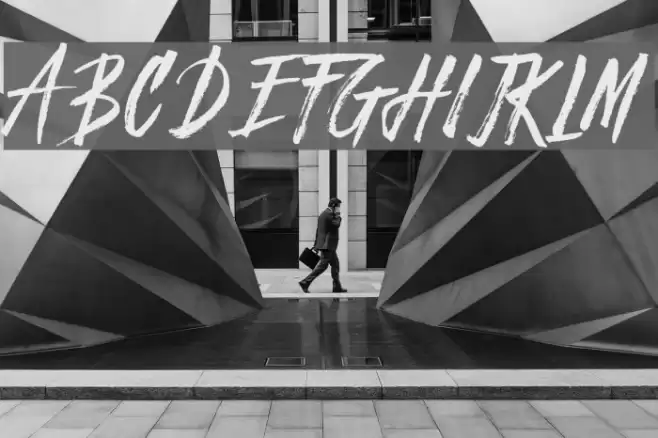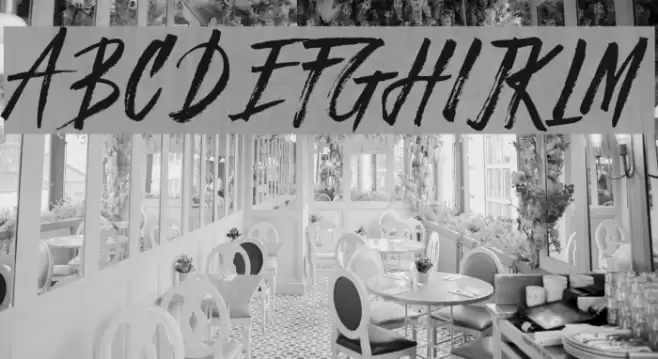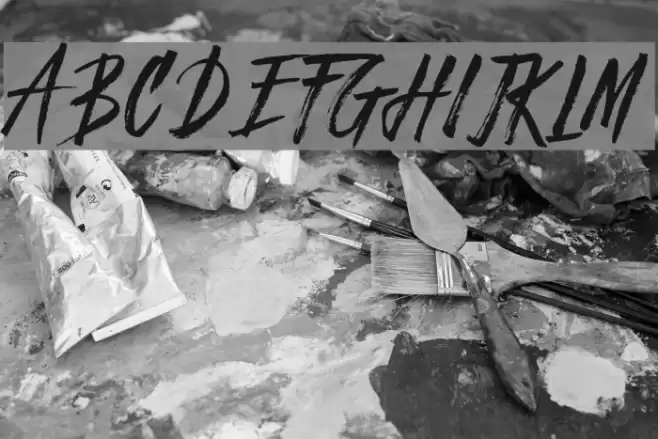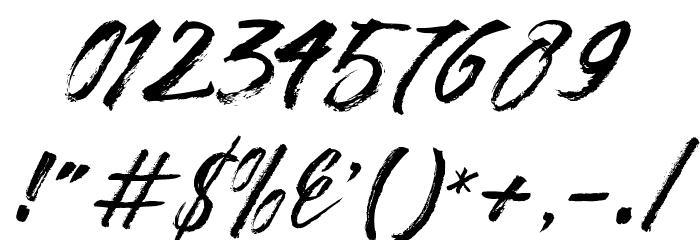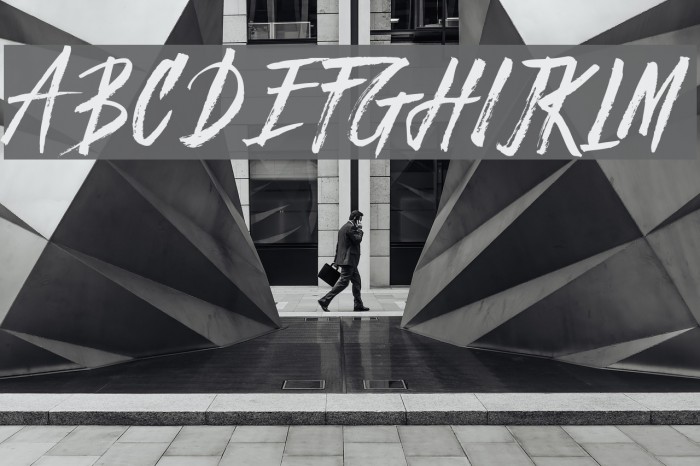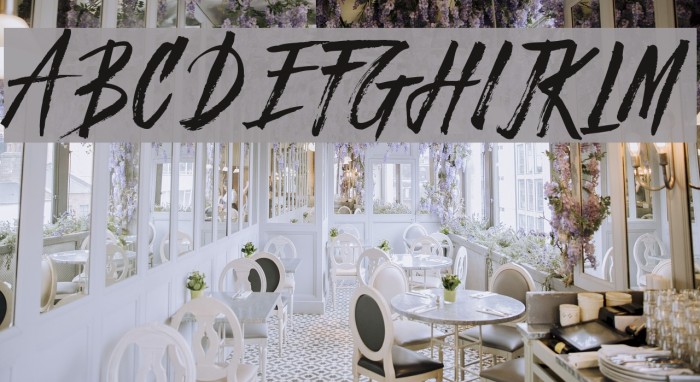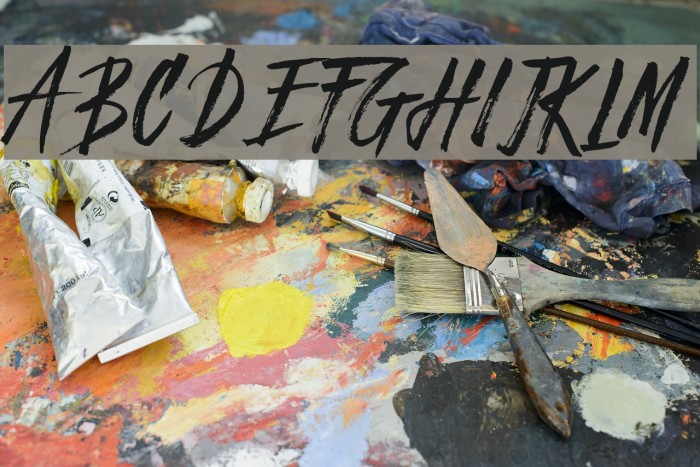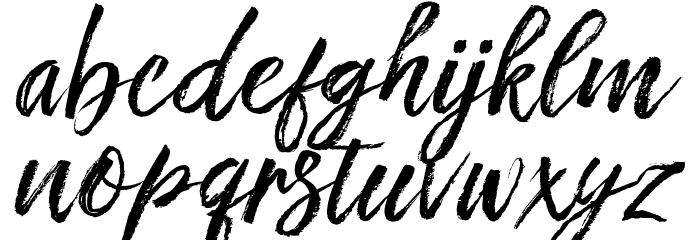
FronteScript Font
FronteScript Description
This font features a bold, expressive script style that mimics the fluidity and texture of hand-painted brush strokes. The characters are dynamic and slightly slanted, giving a sense of movement and energy. The uppercase letters are bold and commanding, while the lowercase letters maintain a consistent flow, enhancing readability despite the artistic flair. The numbers and special characters are crafted with the same attention to detail, ensuring a cohesive look across all glyphs. The texture within each character adds a raw, authentic feel, making it ideal for projects that require a personal, handcrafted touch.
A bold, brush-style script font with dynamic, textured strokes from Uncategorized fonts.
- Proposed Projects: Ideal for branding, packaging, posters, and any design requiring a personal, artistic touch.